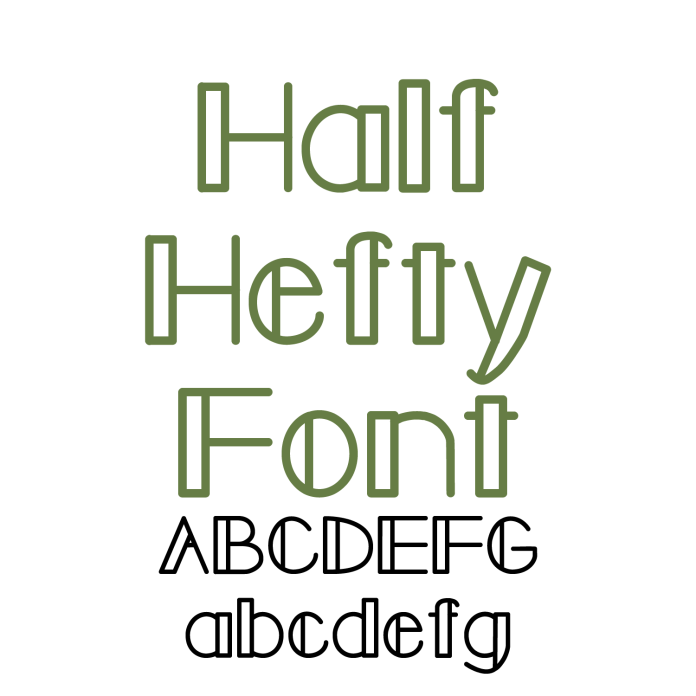
Make a bold yet playful statement with Half Hefty Font! This quirky sans serif typeface features a unique half-filled style, giving each letter a creative and modern edge. With a mix of thick and open spaces, it offers a fun twist on geometric letterforms that remain highly legible and eye-catching. Perfect for posters, logos, branding, classroom projects, and more, Half Hefty adds character without sacrificing clarity. Both uppercase and lowercase letters are full of personality, making your designs pop with style. Whether you're crafting something cool or creative, Half Hefty Font delivers the perfect balance of bold and breezy.